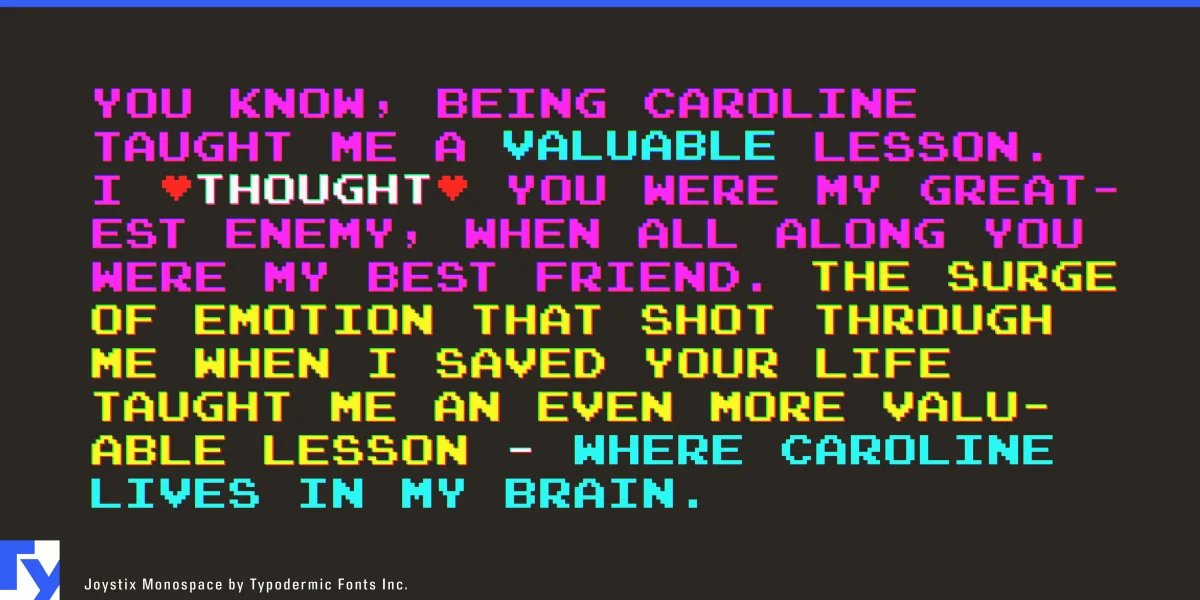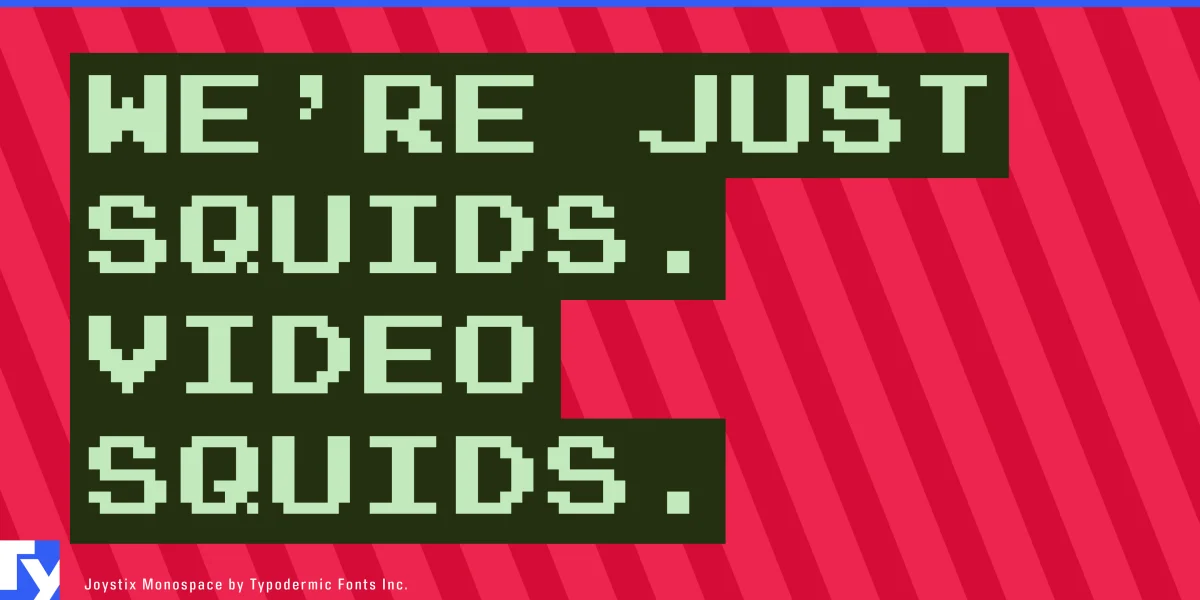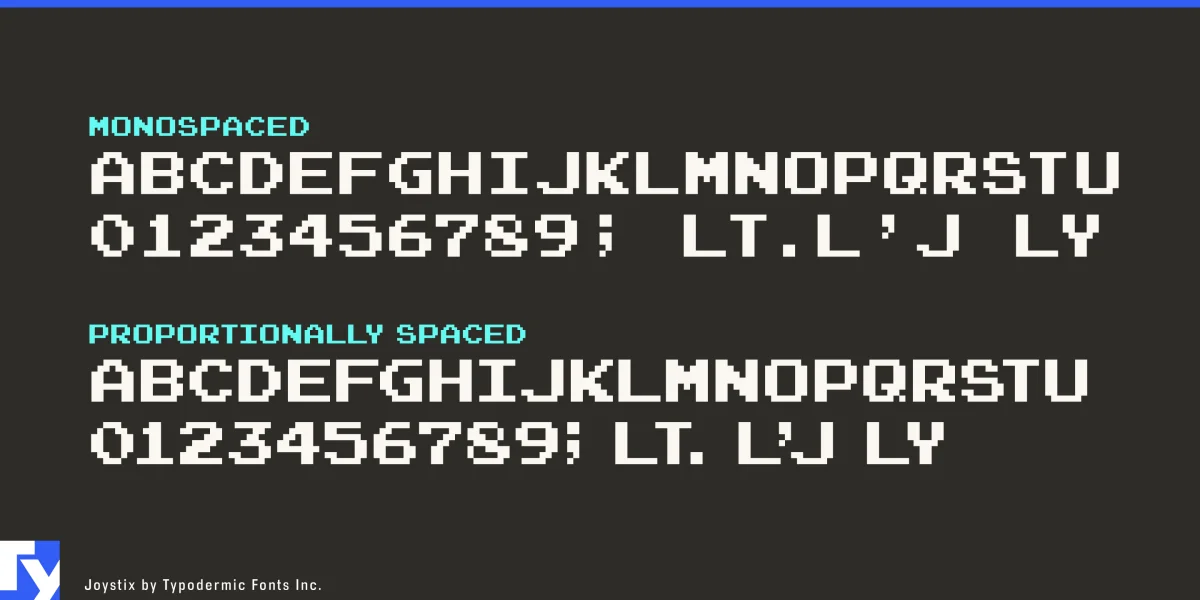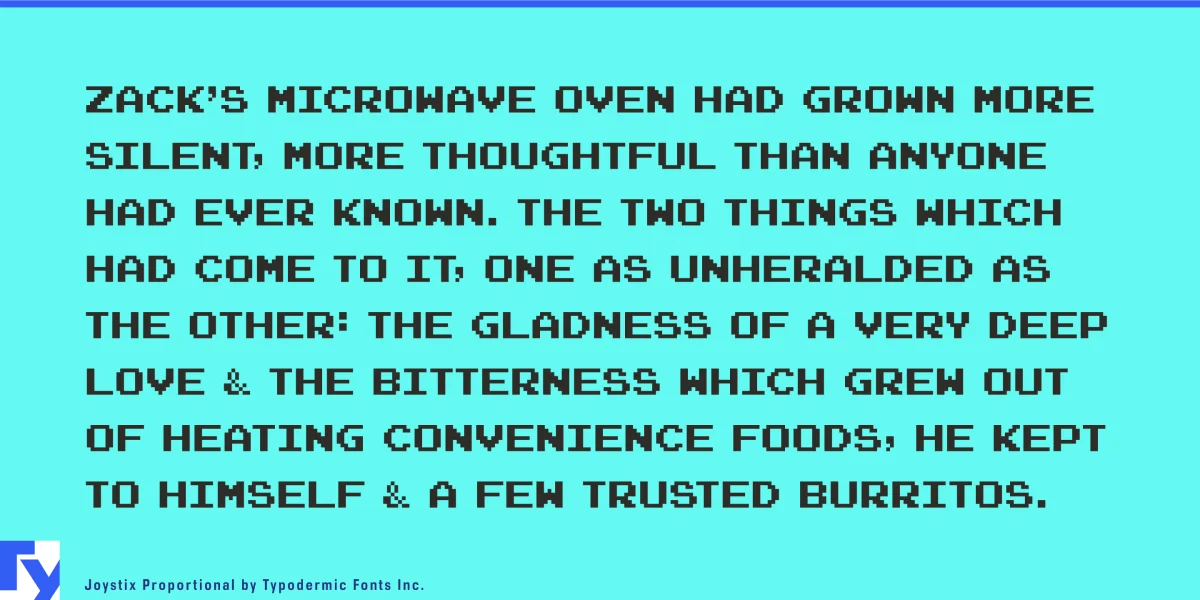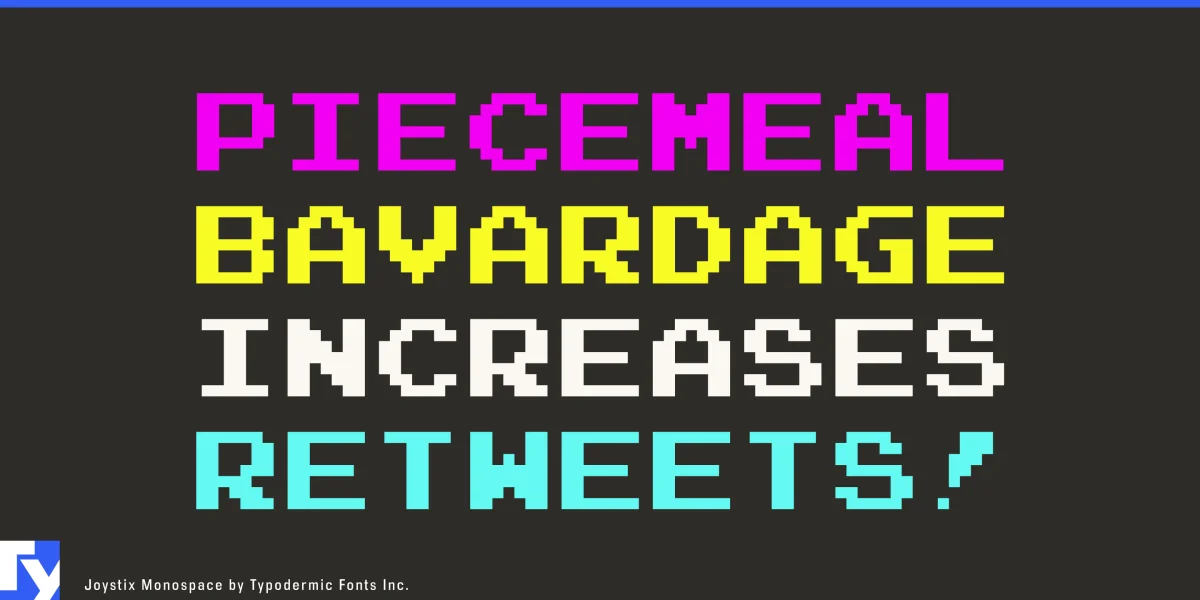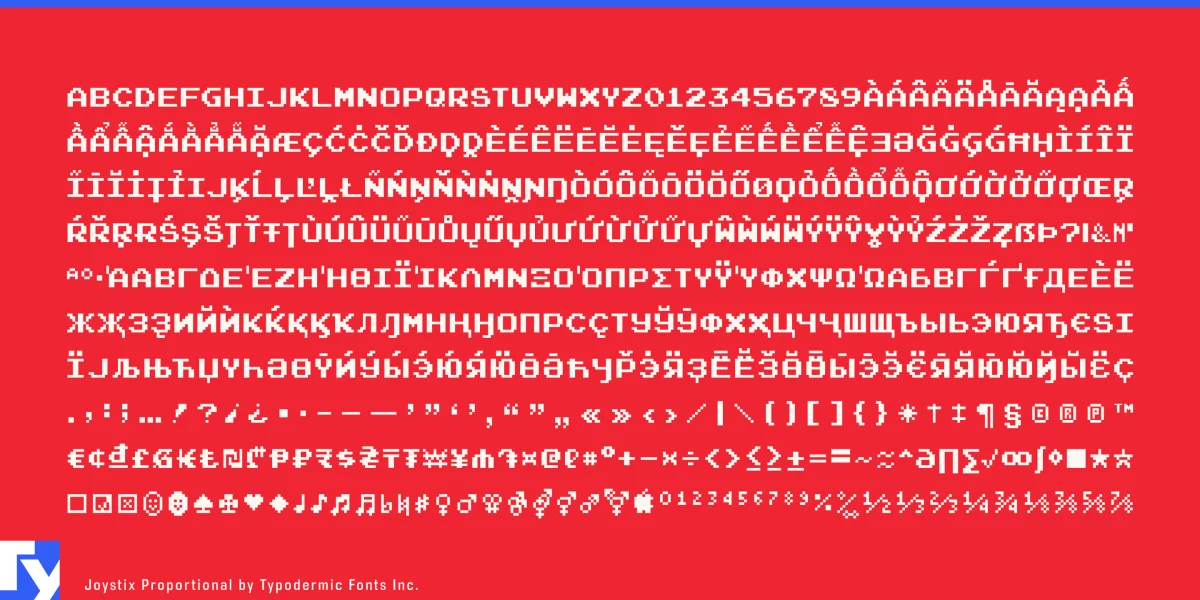
Joystix transports you to the golden age of arcade gaming, capturing the essence of 1980s pixel art in a typeface that’s both nostalgic and surprisingly versatile. This meticulously crafted font family brings the iconic aesthetics of classic video games to modern design, offering a unique blend of retro charm and contemporary functionality.
At its core, Joystix is a loving tribute to the pixelated typography that defined an era of gaming. Every character has been designed with painstaking attention to detail, ensuring an authentic recreation of the blocky, low-resolution charm that gamers of a certain age will instantly recognize. Yet, Joystix isn’t merely a relic—it’s a powerful tool for modern designers looking to infuse their work with a touch of vintage digital flair. The typeface comes in two distinct flavors, each serving a unique purpose. Joystix Monospaced delivers an unadulterated retro gaming experience, with each character occupying the same width for that authentic arcade feel. It’s perfect for projects that demand absolute fidelity to the aesthetic of early digital displays. Joystix Proportional, on the other hand, offers a more refined take on the pixel art style. By adjusting the spacing between characters, it creates elegant, space-efficient headlines that maintain the essence of classic gaming while adapting to contemporary design needs.
What truly sets Joystix apart is its remarkable linguistic versatility. Despite its retro roots, this typeface is equipped to handle the demands of global communication. Supporting an extensive range of writing systems—including Latin-based European languages, Vietnamese, Greek, and most Cyrillic-based scripts—Joystix allows designers to bring the nostalgia of arcade gaming to audiences worldwide. Imagine crafting a retro-inspired brand that resonates equally well in Gothenburg, Moscow, and São Paulo—Joystix makes it possible. Whether you’re designing a throwback game interface, creating marketing materials for a tech startup with a playful edge, or simply looking to add a dash of pixelated personality to your next project, Joystix offers the perfect solution. Its unique aesthetic can transform mundane text into eye-catching displays that evoke the excitement and wonder of discovering a new arcade cabinet.
Embrace Joystix, and watch as your designs come alive with the spirit of classic gaming. Joystix speaks a visual language that transcends generations and borders, inviting everyone to press start on a new design adventure.